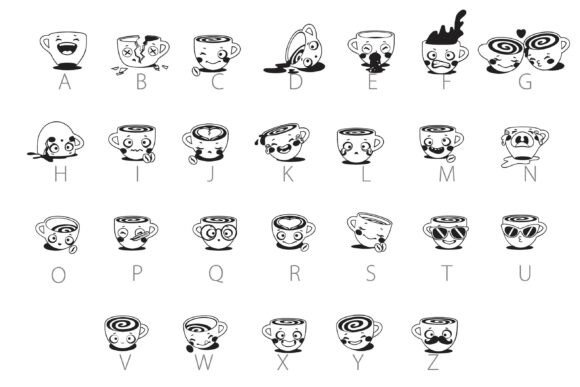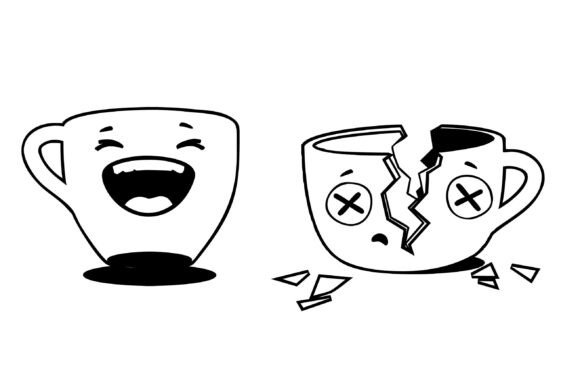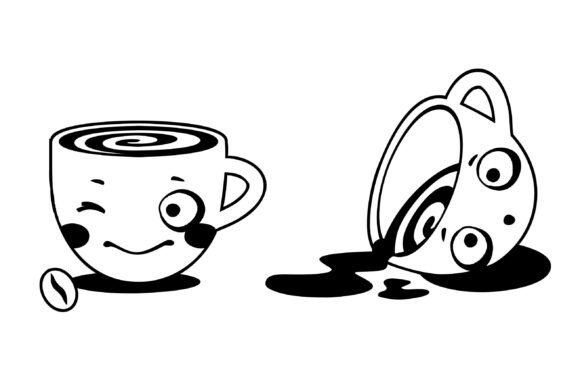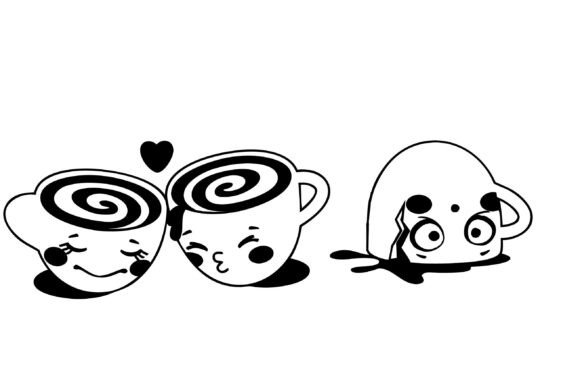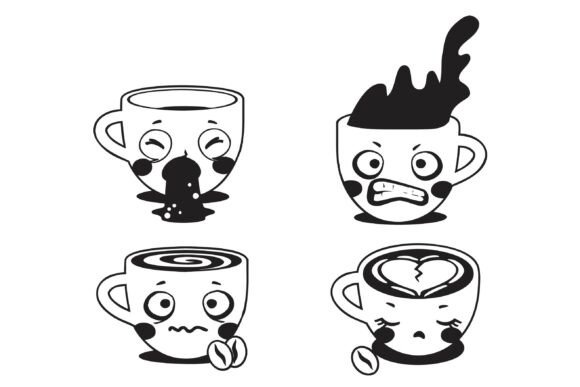
Espresso Yourself: The Ultimate Coffee Cup Mascot Dingbat Set for Designers and Crafters
Are you a designer or crafter looking for a unique and engaging way to add some personality to your projects? Look no further than the Espresso Yourself dingbats font, a high-energy collection of coffee-themed mascots and dingbats that are sure to wake up your creativity.
What is Espresso Yourself?
Espresso Yourself is a charming set of caffeinated characters, each with its own distinct personality and design. From laughing lattes and winking espressos to spilled cups and broken mugs, this collection has everything you need to add a touch of humor and whimsy to your projects. Whether you’re working on independent cafe branding, boutique coffee roaster packaging, custom planner stickers, or social media assets, Espresso Yourself is the perfect choice.
The Ultimate “Monday Mood” Companion
We’ve all been there – Monday mornings, coffee hasn’t kicked in yet, and all we can think about is getting through the day. That’s where Espresso Yourself comes in. This delightful dingbat set perfectly captures the “Monday mood” with its relatable and expressive designs. Each character is carefully crafted to bring a smile to your face and inspire your creativity.
Key Features of Espresso Yourself
- High-energy collection: Espresso Yourself is a vibrant and engaging set of coffee-themed mascots and dingbats that are sure to add a boost of energy to your projects.
- Charming cast of characters: From laughing lattes to winking espressos, each character in this set has its own unique personality and design.
- Relatable-grind soul: Espresso Yourself understands the daily grind and is designed to bring a touch of humor and whimsy to your projects.
- Expressive, wide-eyed character designs: Each character in this set features a distinctive, wide-eyed design that’s sure to capture the attention of your audience.
Use Cases for Espresso Yourself
So, how can you use Espresso Yourself in your projects? Here are a few ideas to get you started:
- Independent cafe branding: Add a touch of personality to your cafe’s branding with custom mascots and dingbats that reflect your unique style.
- Boutique coffee roaster packaging: Stand out from the crowd with eye-catching packaging that features Espresso Yourself’s charming characters.
- Custom planner stickers: Add some fun and whimsy to your planner with custom stickers featuring Espresso Yourself’s coffee-themed mascots.
- Social media assets: Create engaging social media assets that showcase your brand’s personality and style with Espresso Yourself.
Why Choose Espresso Yourself?
With so many dingbat sets on the market, why choose Espresso Yourself? Here are just a few reasons why this set stands out from the rest:
- Unique and engaging designs: Espresso Yourself features a charming cast of characters that are sure to capture the attention of your audience.
- High-quality graphics: Each character in this set is carefully crafted with high-quality graphics that will look great in any project.
- Versatile and customizable: Espresso Yourself can be used in a variety of projects and customized to fit your unique style and branding.
Get Creative with Espresso Yourself